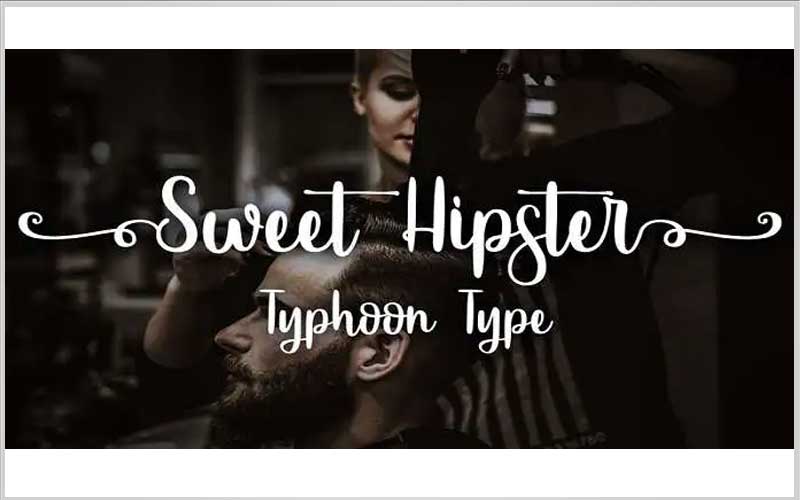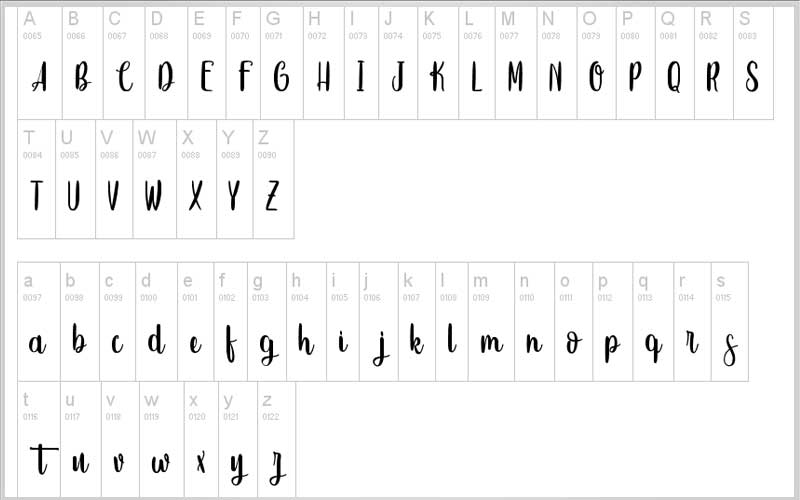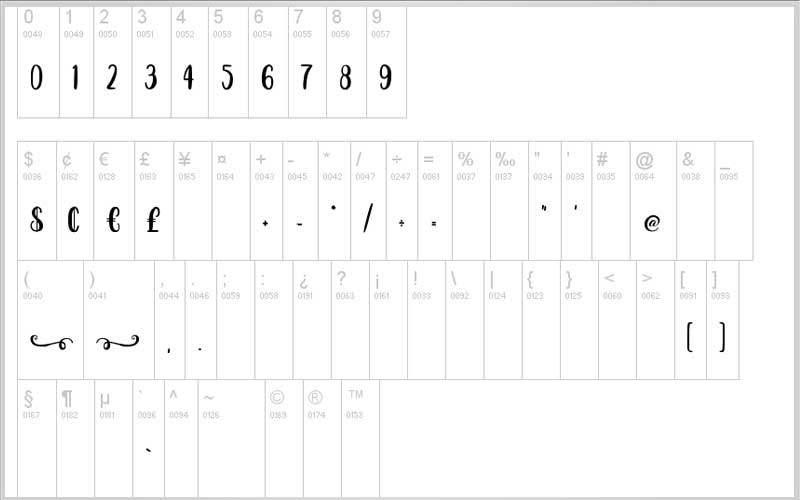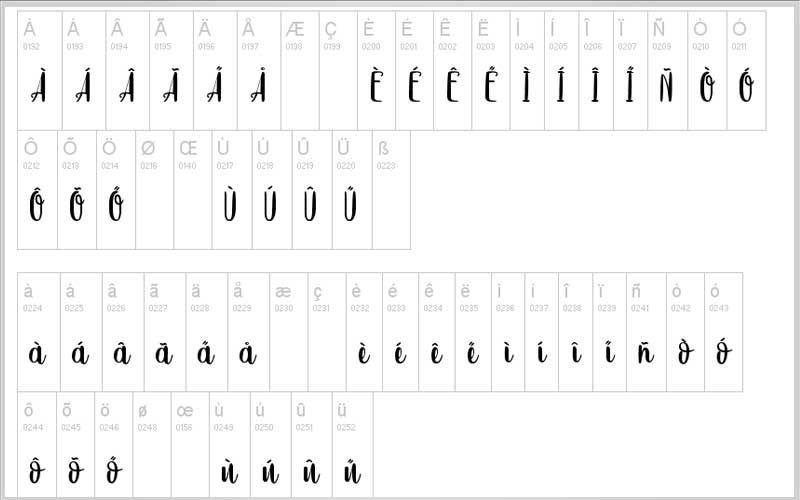
Sweet Hipster Font is suitable for Handwritten to get your text designs? look better. The Sweet Hipster Font for free download for personal or paid if commercial use.
Type ( before word to get beginning swash and Type ) after word to get the ending swash.
Example : (Sweet Hipster)